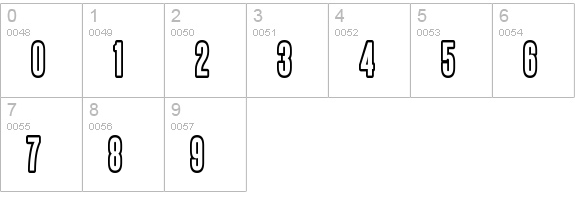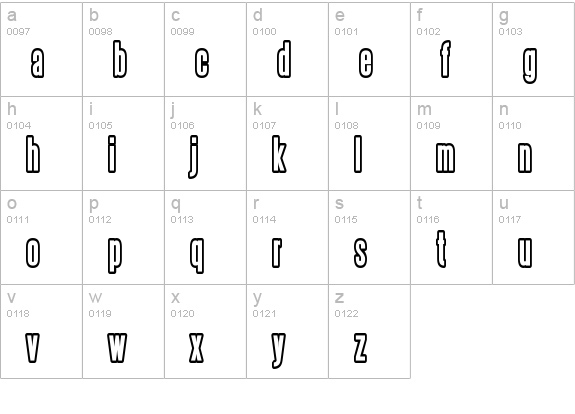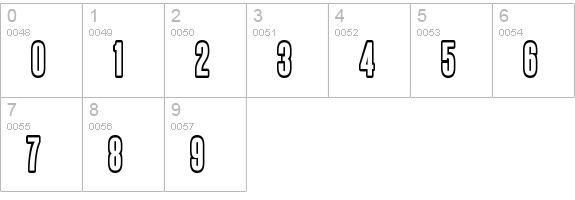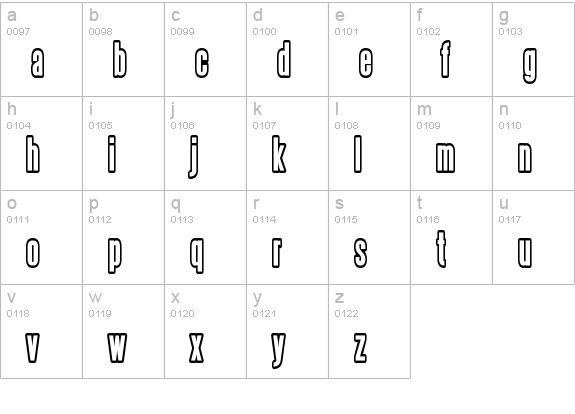
Steelfish Outline Font Details
Steelfish Outline font is a stunning display typeface that exudes strength and professionalism. With its bold and angular design, this font is perfect for making a bold statement in various design projects. Whether you're working on a logo, headline, or any other creative project, Steelfish Outline font will instantly catch the eye and leave a lasting impression. What sets Steelfish Outline font apart is its versatility. It can be used for both modern and traditional designs, adding a touch of sophistication to any layout. The clean lines and sharp edges of this font give it a contemporary feel, while its boldness and substance make it ideal for more traditional designs. The result is a font that can adapt to any design style, making it a valuable asset for designers of all backgrounds. One of the best things about Steelfish Outline font is that it is freely available to download at FontsMarket.com. This means that designers can access and use this amazing font without any cost. Whether you're a professional designer or someone who simply enjoys creating designs as a hobby, having access to high-quality fonts like Steelfish Outline font can greatly enhance your creative projects. With its bold and captivating design, Steelfish Outline font is sure to make a lasting impression on your audience. Its versatility and availability as a free download make it an invaluable tool for any designer. So why wait? Head over to FontsMarket.com and get your hands on Steelfish Outline font today.